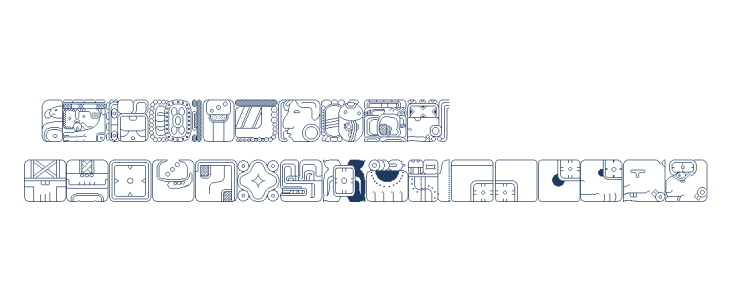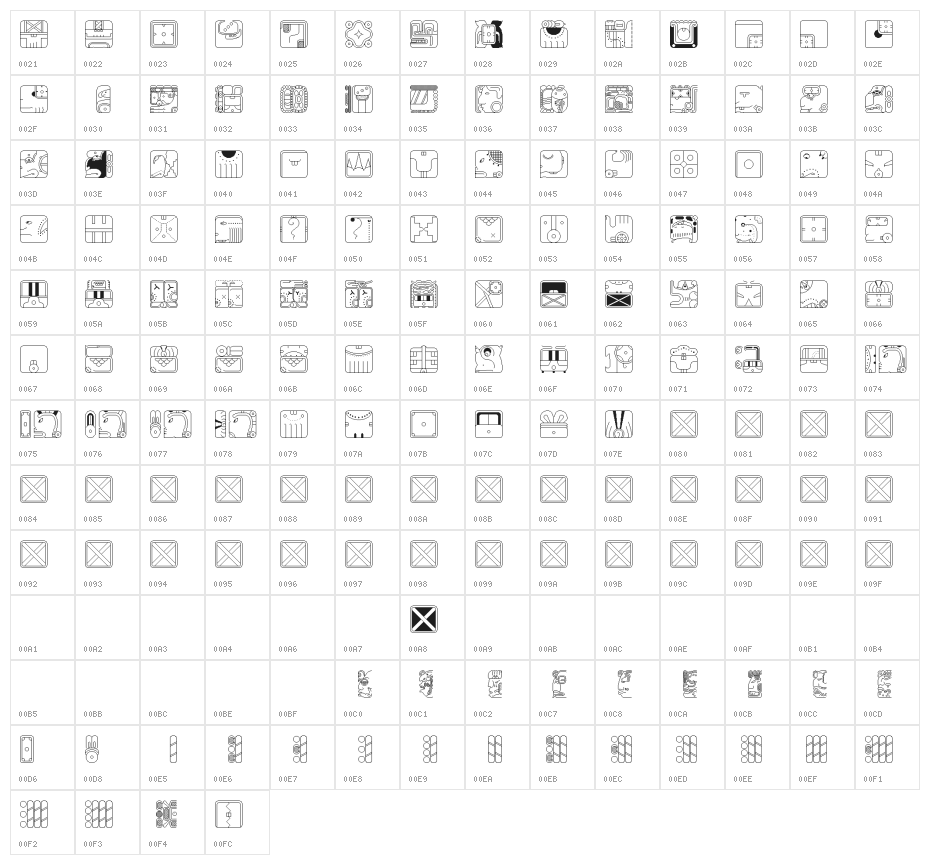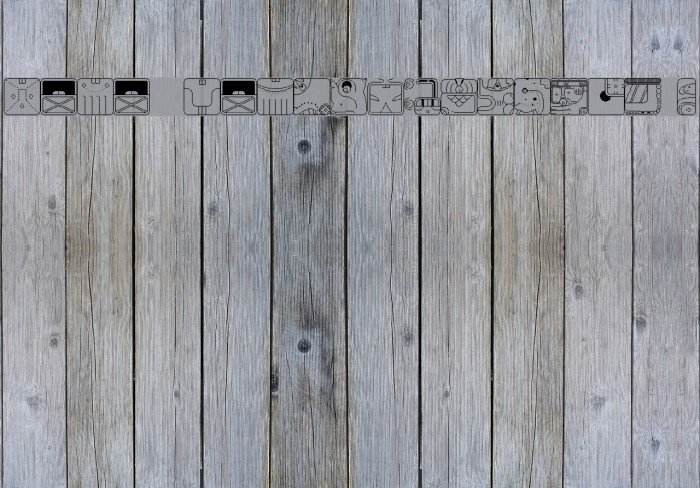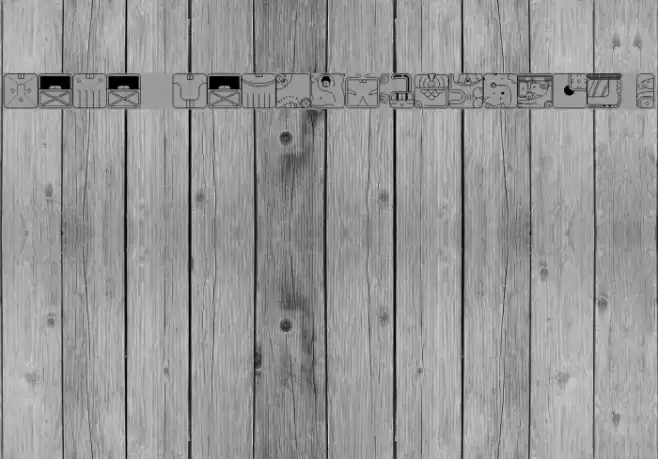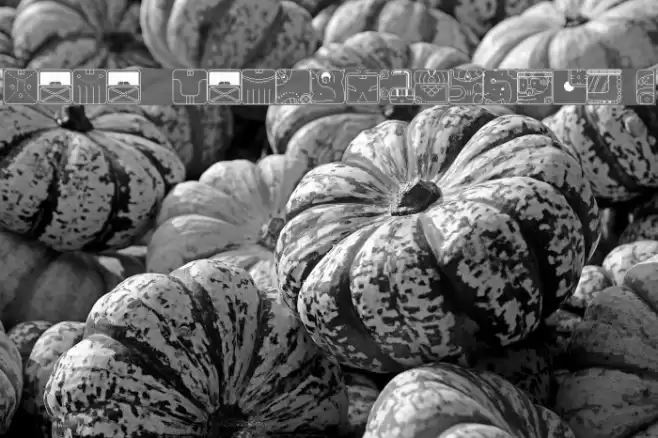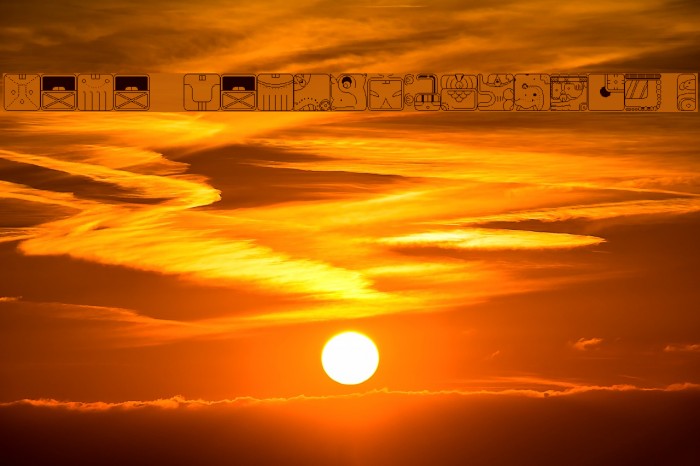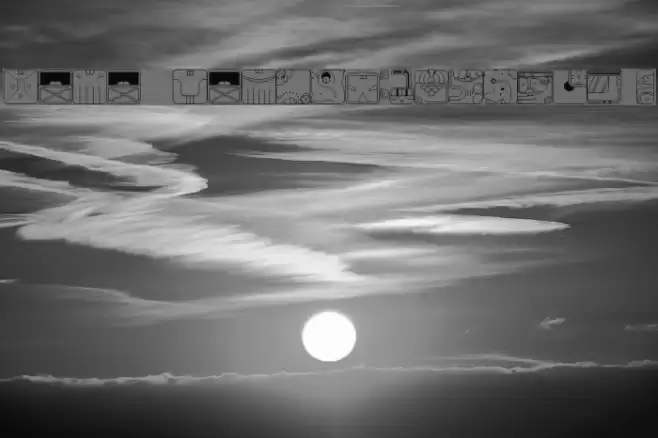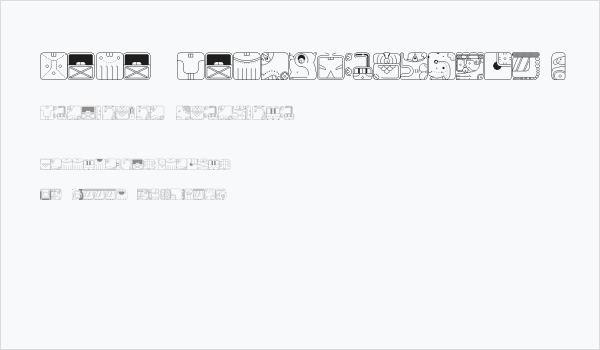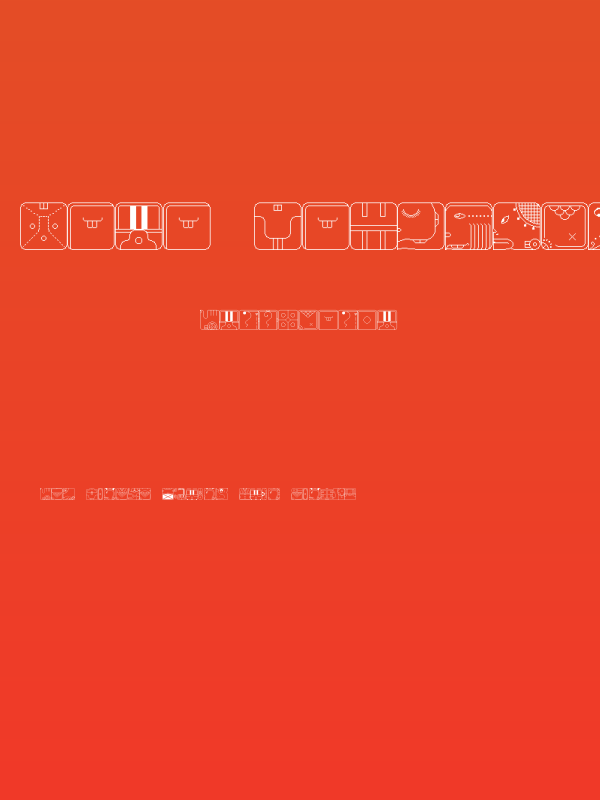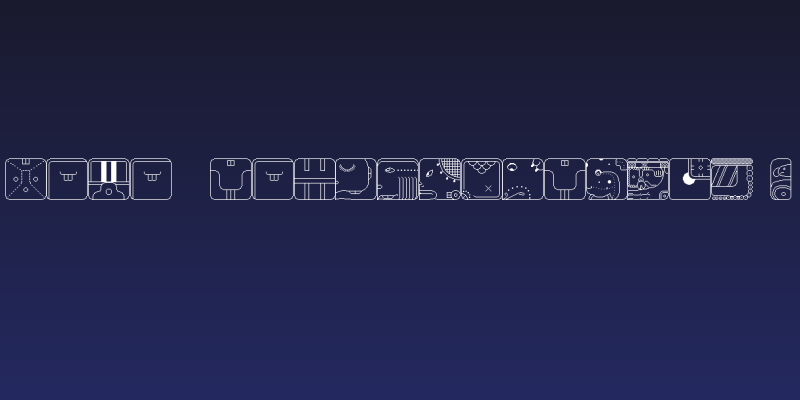
Maya CalendricV1.50 Font
Maya CalendricV1.50 Description
This font is a decorative and intricate design inspired by ancient Mayan glyphs. Each character is enclosed in a square, featuring detailed and abstract patterns that resemble traditional Mayan art. The characters are highly stylized, with complex line work and geometric shapes that create a unique visual texture. The font does not follow traditional alphabetical forms, making it more of an artistic representation rather than a functional typeface for standard text. It is ideal for projects that require a historical or cultural theme, particularly those related to ancient civilizations or indigenous art.
| Use Case | Logos, Artistic projects, Cultural themes |
| Proposed Projects | Ideal for cultural exhibitions, historical documentaries, themed event posters, or artistic projects that require a touch of ancient civilization aesthetics. |